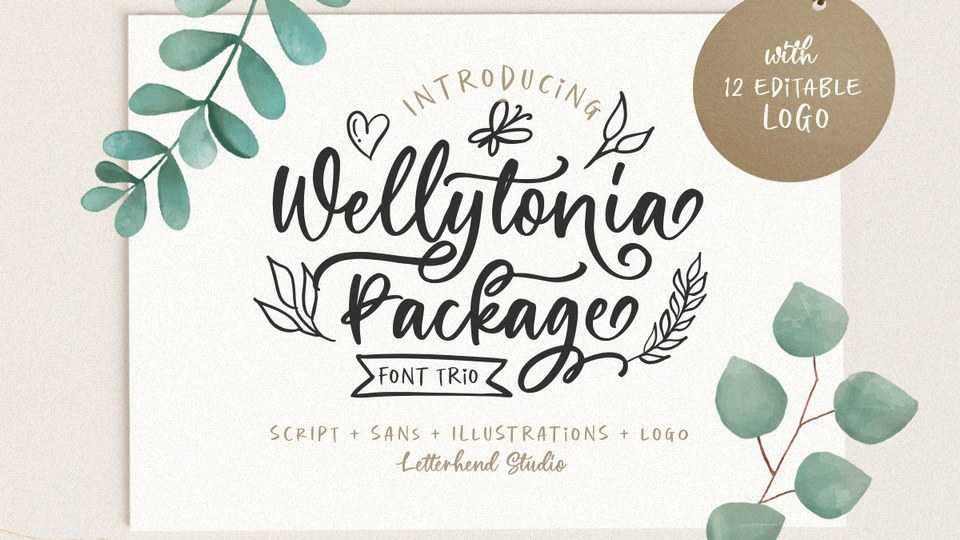
Download Wellytonia font, a lovely script typeface, all made by manual hand drawing to make sure the natural looks and feel. Trendy and stylish, Wellytonia will elevate each of your creations.